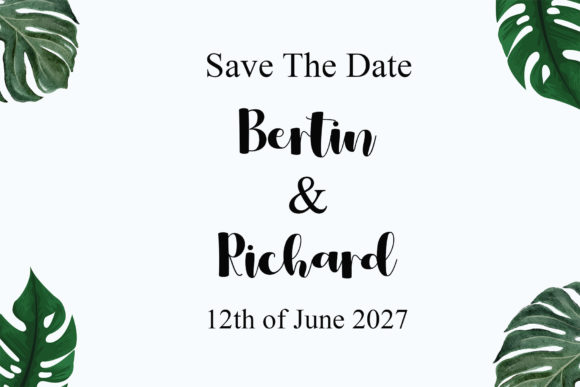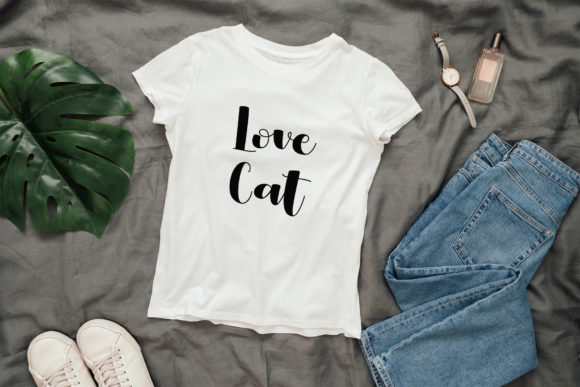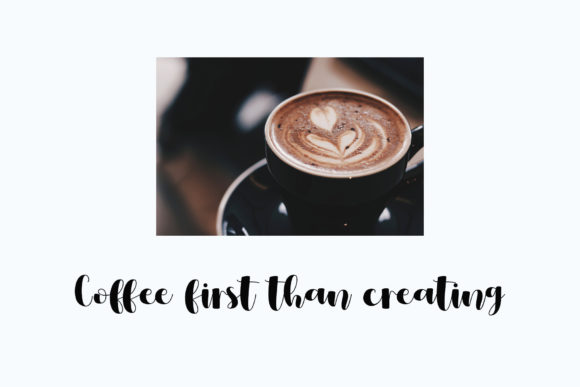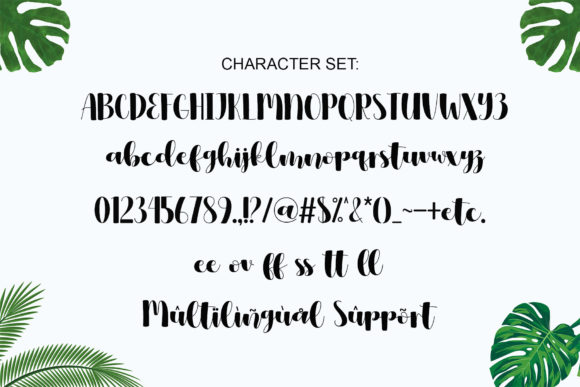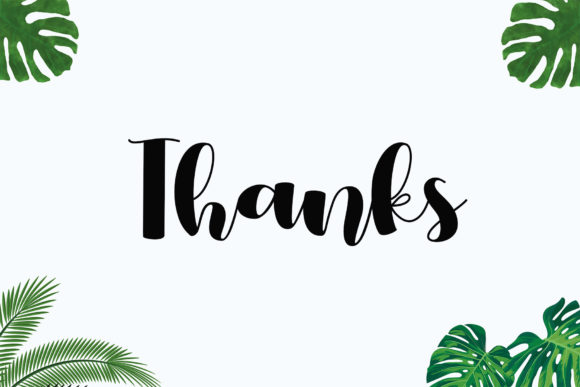
Bettins Font
About Bettins Font
“Bettins” is a friendly script font that captivates with its charming and inviting style. Designed to be visually appealing, this font offers a ravishing aesthetic that can elevate your designs. With PUA encoding, accessing all glyphs and swashes is made effortless, providing designers with a seamless experience for customization and creativity.
The friendly and approachable nature of “Bettins” makes it well-suited for a variety of design projects. Whether used in posters, invitations, branding materials, or any creative endeavor that requires a touch of warmth, this font excels in conveying a friendly and engaging vibe.
The ravishing style of “Bettins” is evident in its fluid strokes and playful letterforms, making it an ideal choice for designs that aim to be visually captivating. The font’s versatility allows it to adapt to different themes and contexts, providing a reliable option for creating gorgeous and eye-catching visuals.
In projects where a friendly and inviting script is essential, “Bettins” stands out, ensuring that your designs communicate warmth and approachability. Whether applied to social media graphics, greeting cards, or any other medium, the font adds a touch of charm that resonates with audiences.
In summary, “Bettins” is not just a font; it’s a design tool that brings a friendly and ravishing style to your creative projects. With its PUA encoding facilitating easy access to a variety of glyphs and swashes, this font empowers designers to craft stunning and personalized designs with ease.